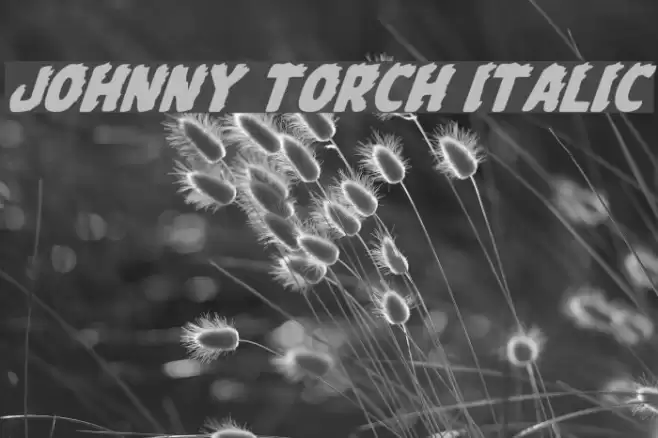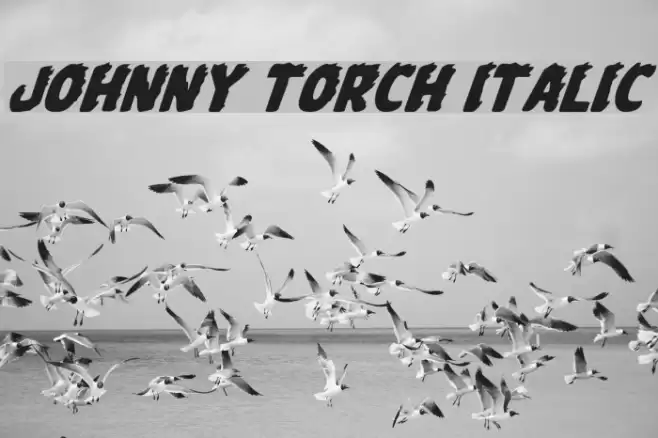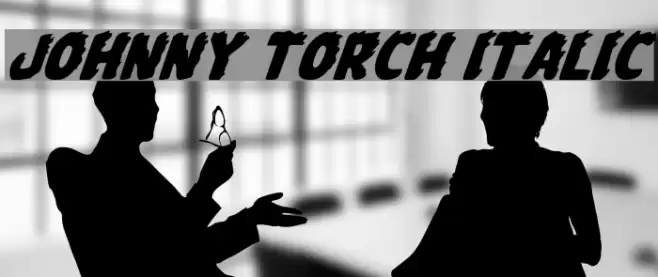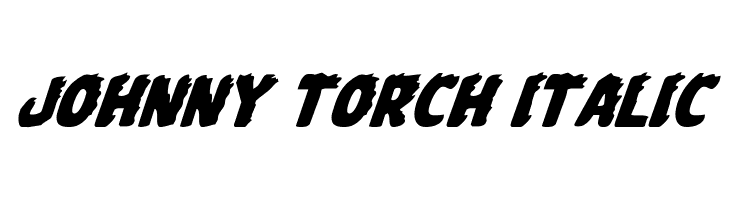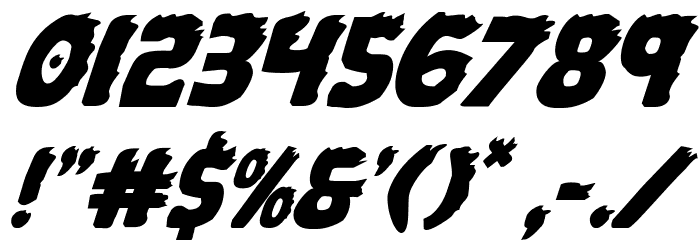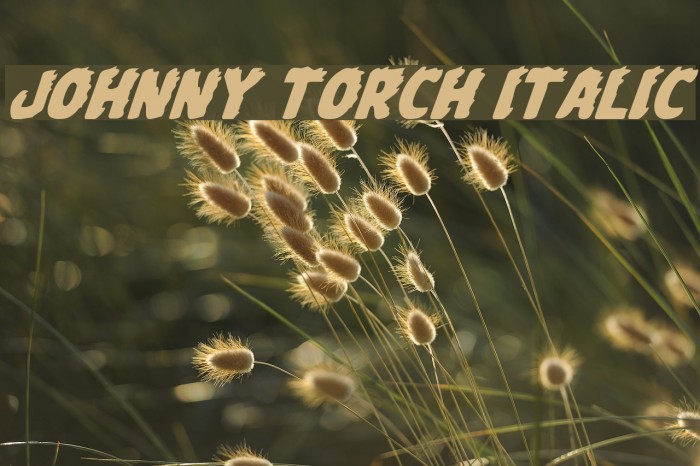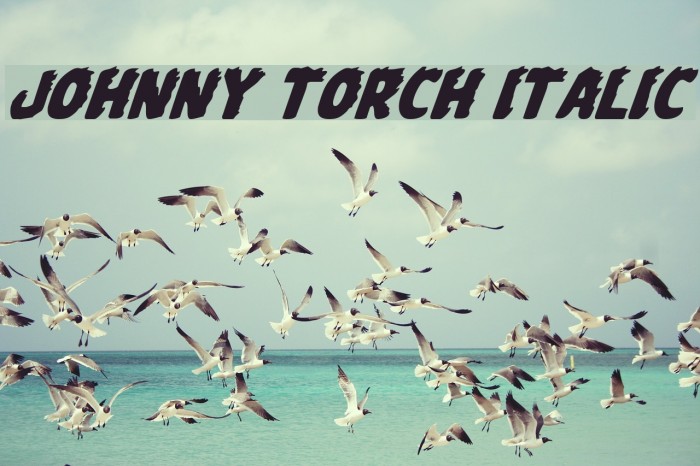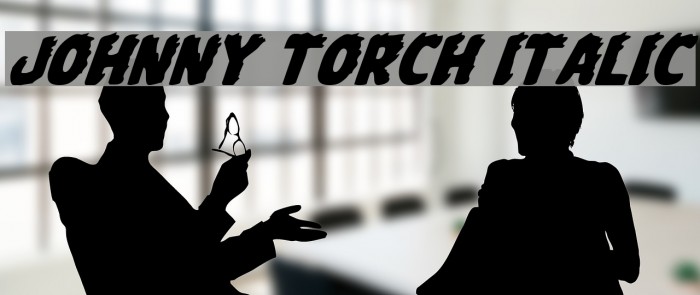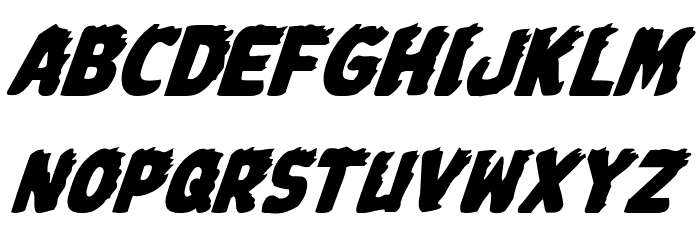
Johnny Torch Italic
This font exhibits a bold and dynamic style with a distinct italic slant, giving it a sense of movement and energy. The characters are thick and robust, with a slightly jagged edge that adds a touch of ruggedness. The uppercase and lowercase letters maintain a consistent style, ensuring readability while still offering a unique flair. The numbers and special characters are equally bold, making them stand out effectively. This font's strong presence makes it ideal for attention-grabbing designs.
A bold, italic font with a dynamic and rugged style.
- Proposed Projects: Ideal for sports branding, action movie posters, dynamic logos, and energetic advertising campaigns.